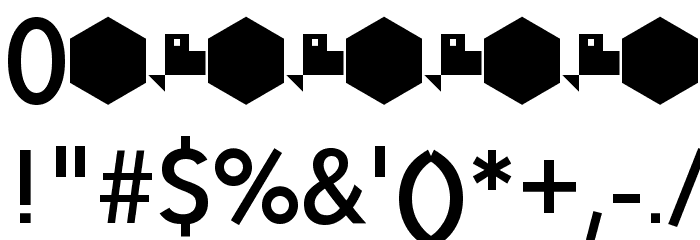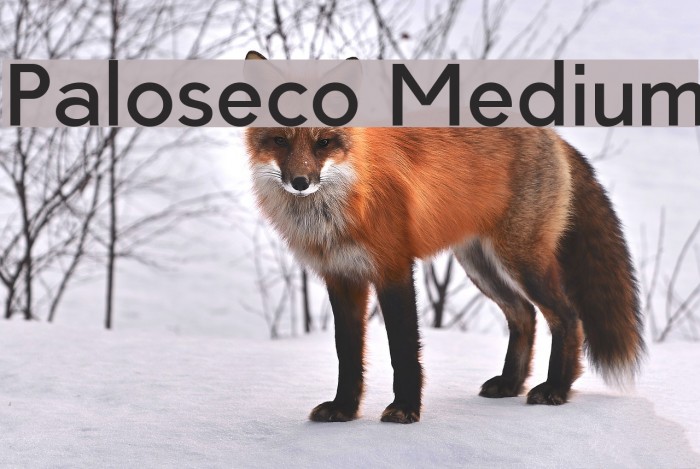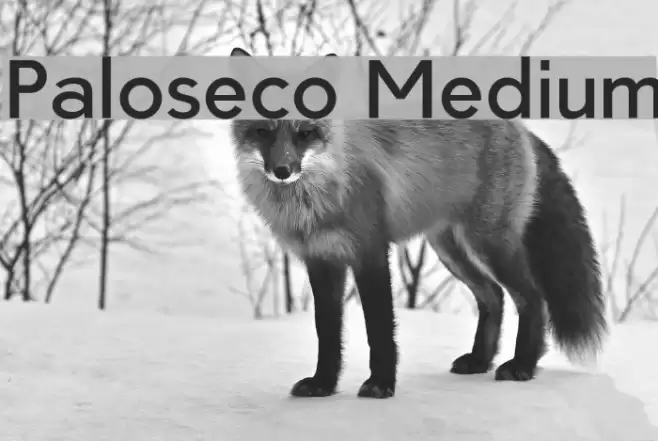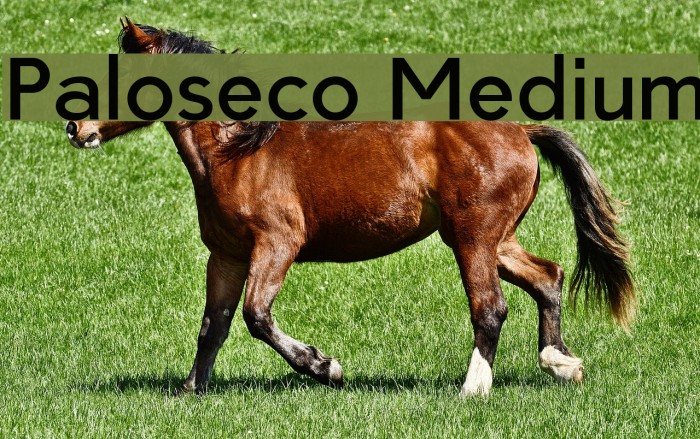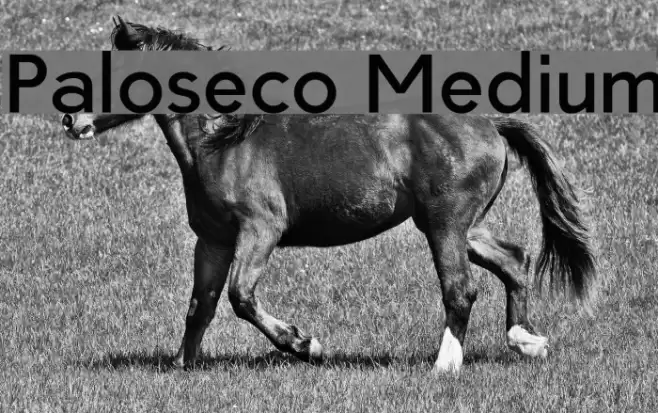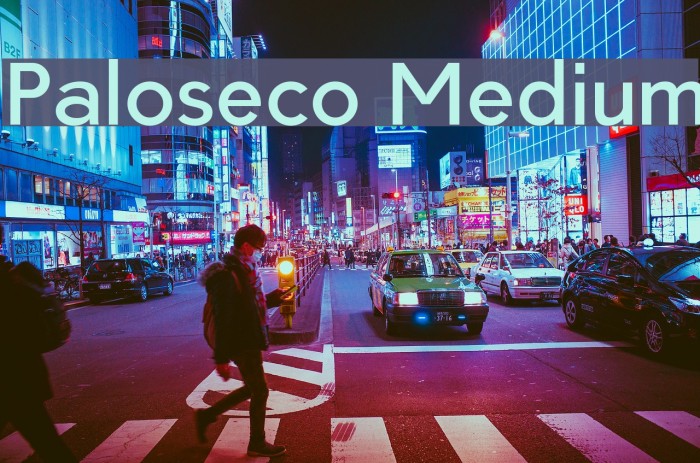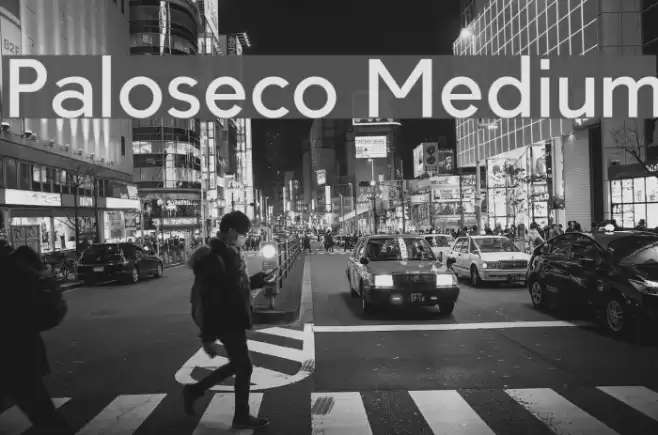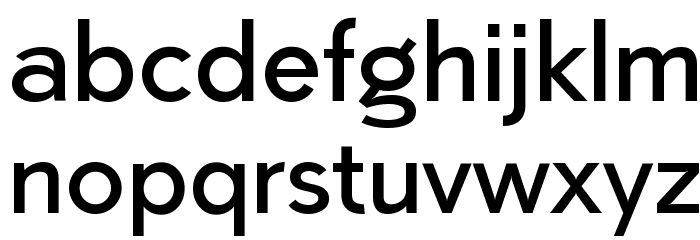
Paloseco Medium Font
This font features a clean and modern sans-serif design with uniform stroke widths, creating a harmonious and balanced appearance. The characters are well-proportioned, offering excellent readability and a contemporary aesthetic. The uppercase and lowercase letters maintain a consistent style, with rounded edges that add a touch of softness to the overall look. The numerals and special characters are designed to complement the alphabet, ensuring a cohesive visual experience. This font is versatile and can be used in various design contexts, from digital to print media.
A modern sans-serif font with clean lines and balanced proportions.
• Proposed Projects: Ideal for branding, web design, advertising, and editorial layouts.
• Category: Sans-Serif
• Overall Style: Modern
• Use Case: Headlines, Body text, Logos